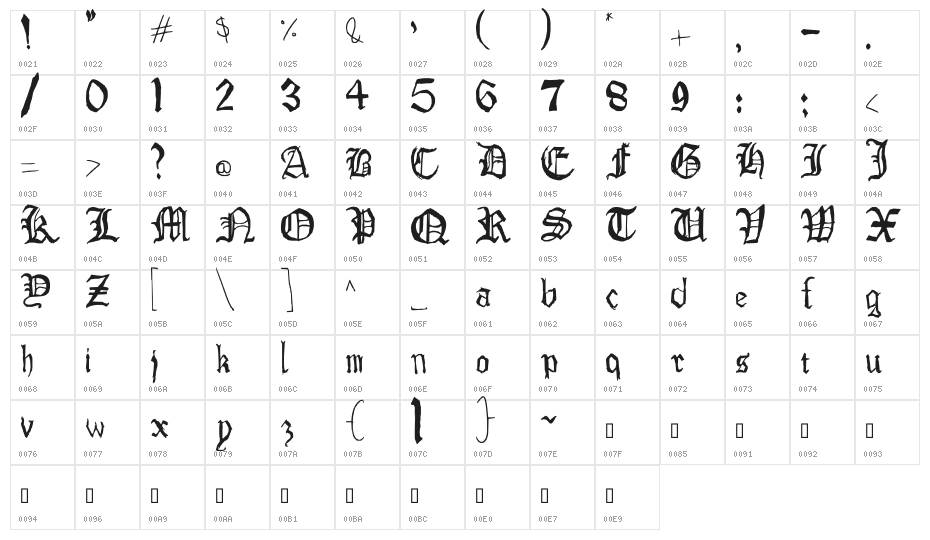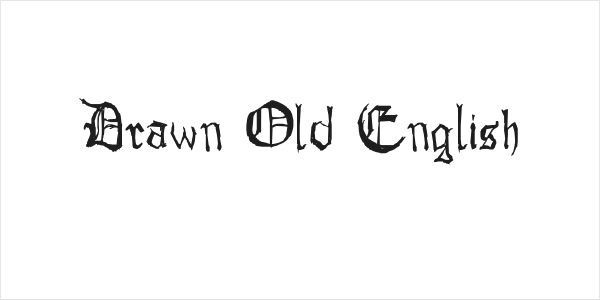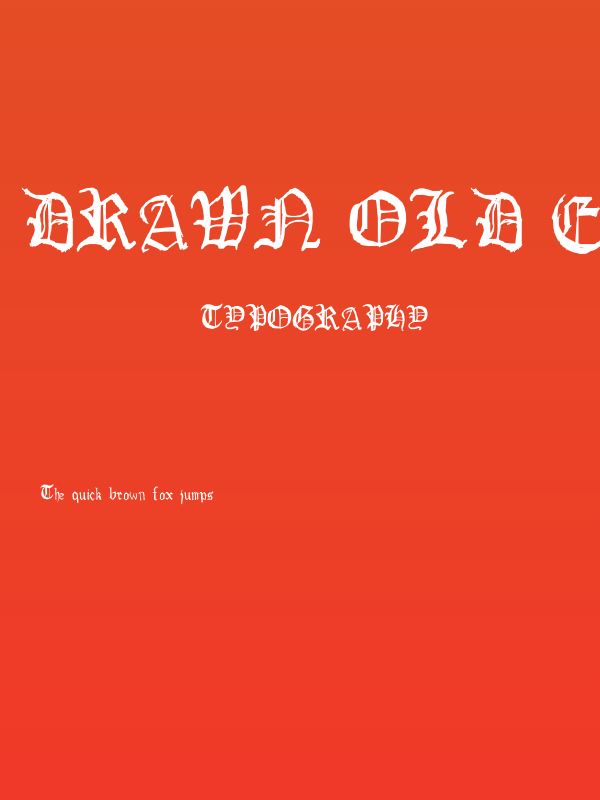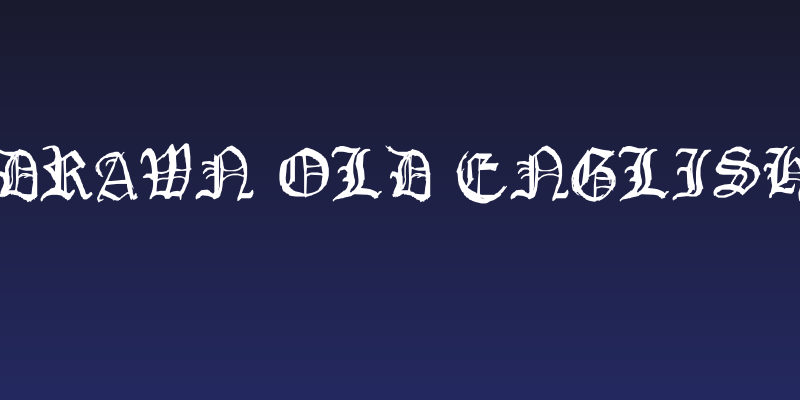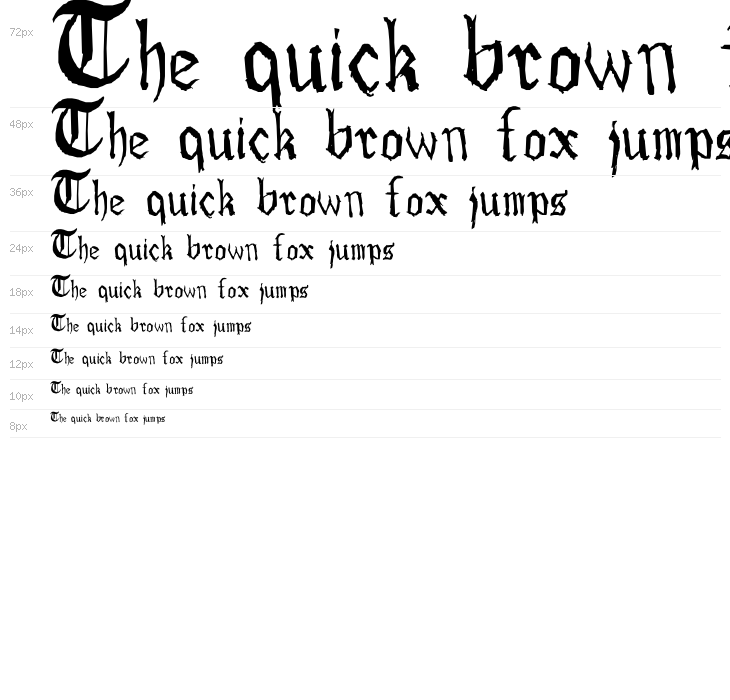
Drawn Old English Font
Drawn Old English Description
This font exudes a classic and historical feel, reminiscent of medieval manuscripts and old English script. The uppercase letters are ornate with sharp, angular lines and intricate detailing, while the lowercase letters maintain a similar style with slightly more fluidity. The numbers are bold and distinct, matching the overall aesthetic with their dramatic curves and edges. Special characters are designed to complement the alphabet, maintaining the same gothic and elaborate style. This font is ideal for projects that require a touch of antiquity and elegance.
| Use Case | Headlines, Logos, Decorative text |
| Proposed Projects | Ideal for historical documents, invitations, book covers, and branding that requires a vintage or medieval touch. |